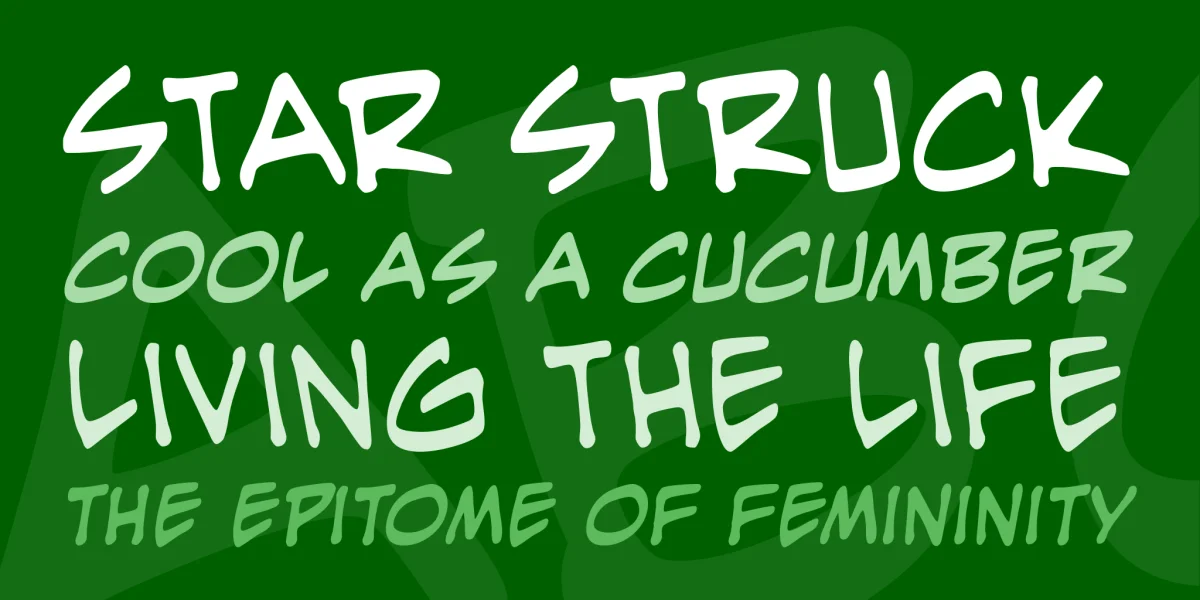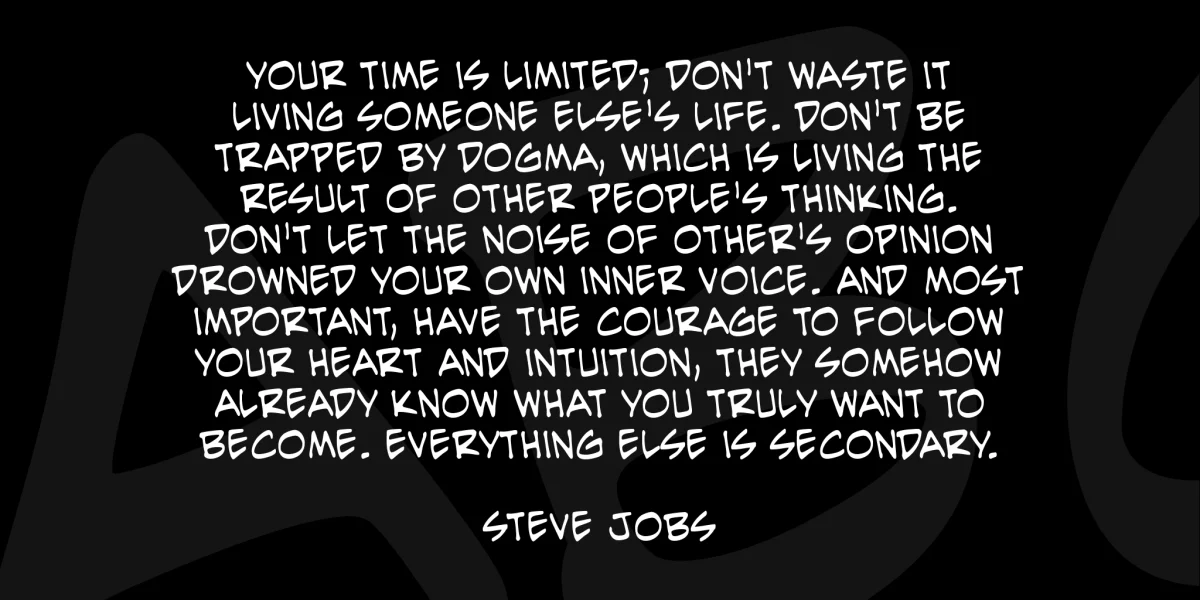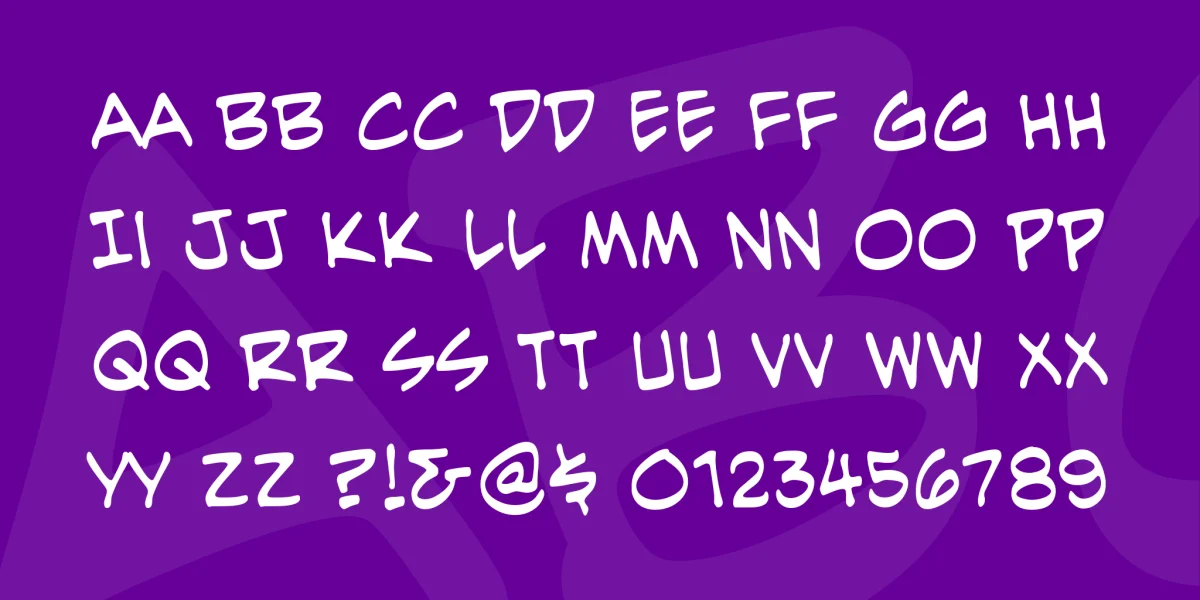
It's been a while since I've given you folks a free dialogue font, and I've had this little gem sitting unfinished on my hard drive for almost a year. I was never quite able to put the finishing touch on it until this week. So bow before the dazzling intellect of EVIL GENIUS! Regular and Bold.